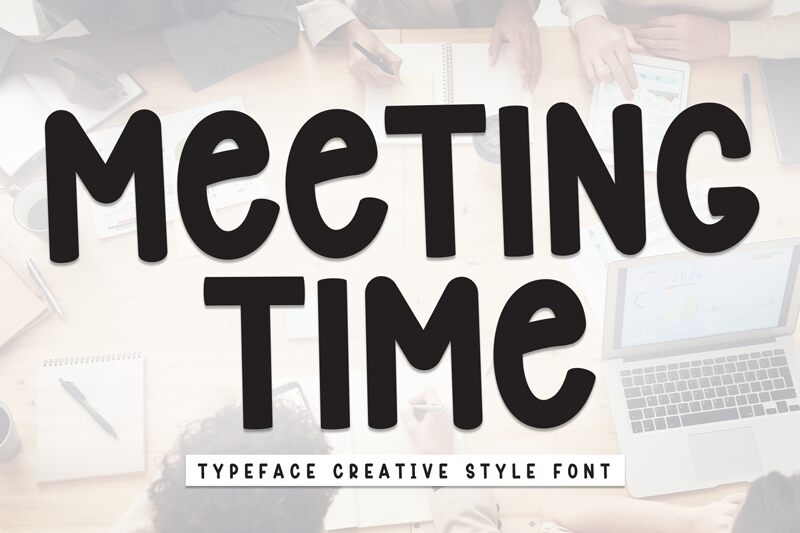
Meeting Time font by Scratchones is a free font with a vibrant, cartoon-inspired style that immediately stands out. Its friendly, casual, and modern feel is achieved through rounded forms, giving off an approachable and lively vibe. Meeting Time's informal nature blends seamlessly into any contemporary applications, making it a must-have for designers looking for an easy-going aesthetic.
The font can be used across different social media graphics or in casual branding projects. Meeting Time shines in playful poster designs, apparel printing, and packaging designs or in advertisements for all kinds of products. The uses are endless with this free font. Integrate it into an exciting website, food package or any design that encourages customers to be happy.